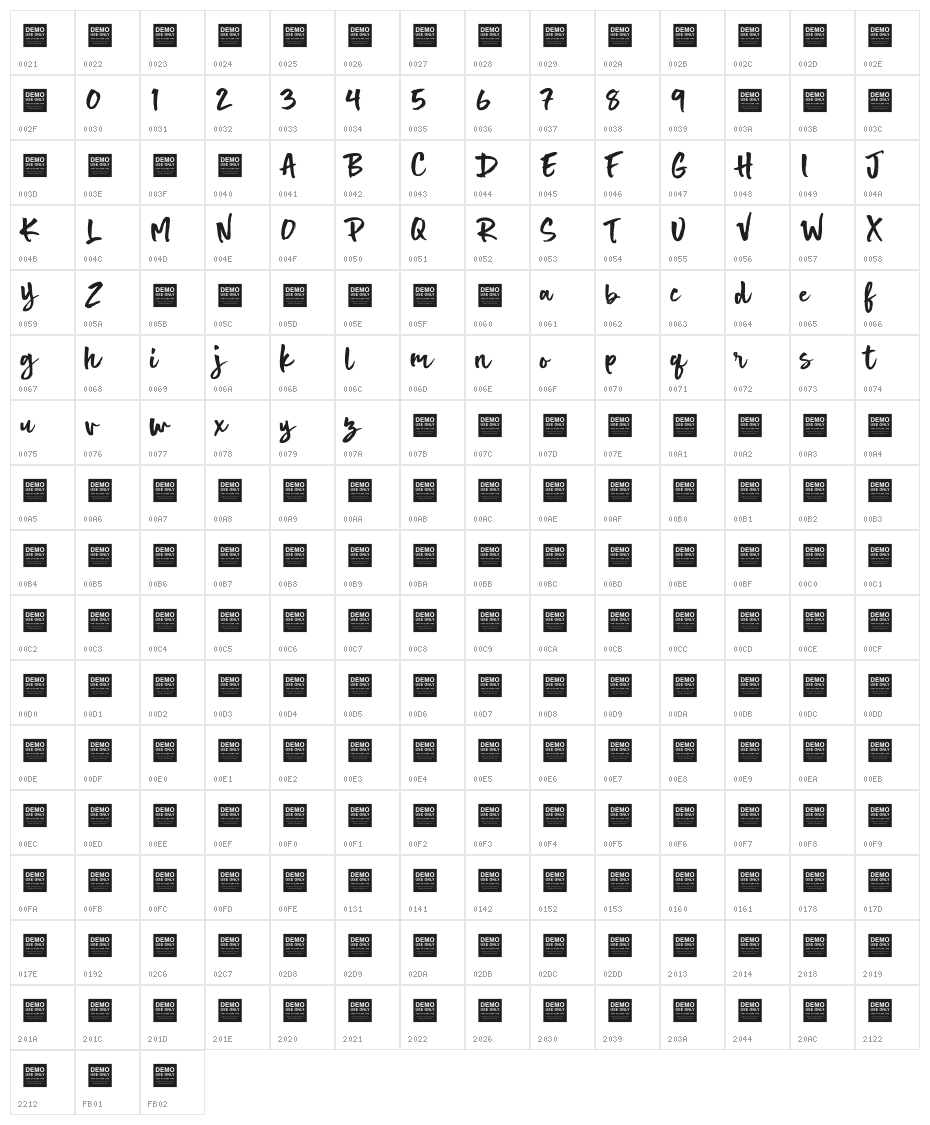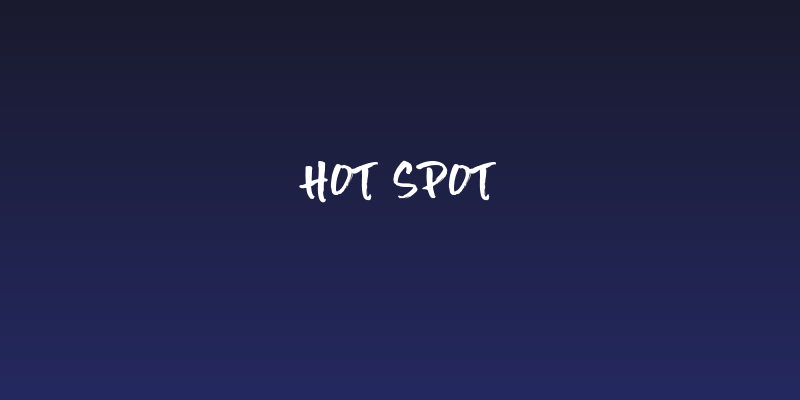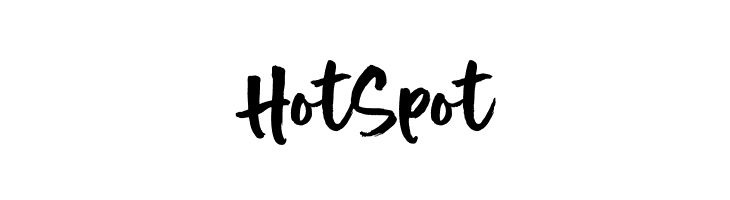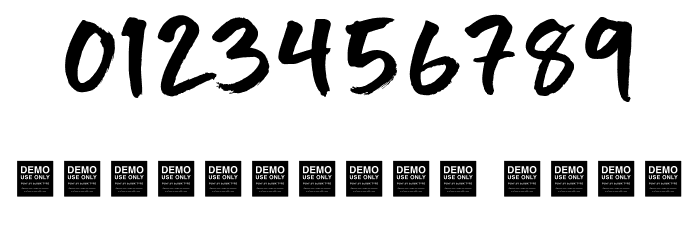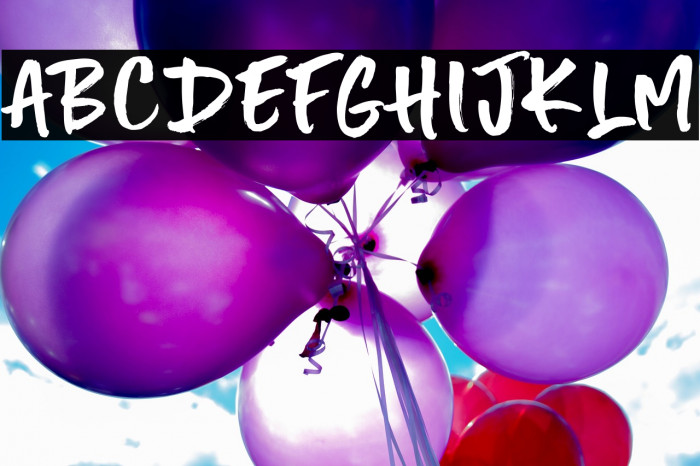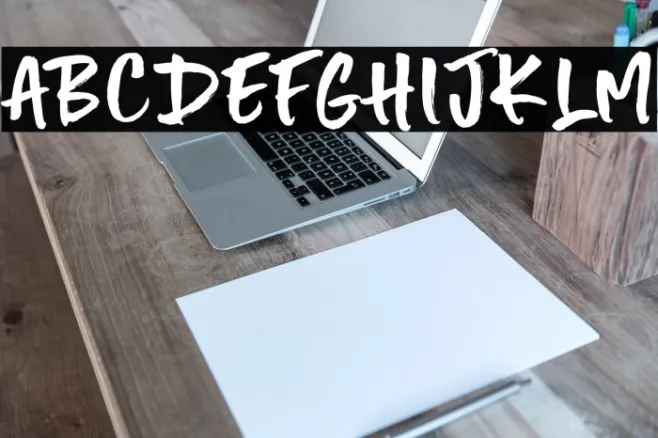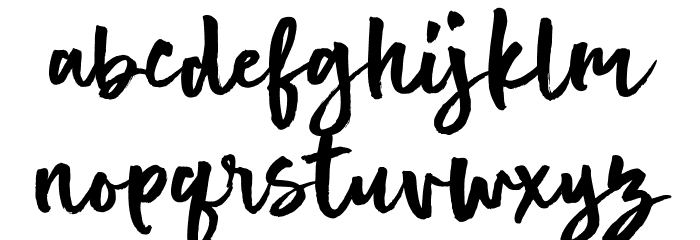
Hot Spot Font
Hot Spot Description
This font features a bold and expressive handwritten style, characterized by its dynamic brush strokes and fluid motion. The uppercase letters are robust and commanding, while the lowercase letters maintain a consistent flow, adding a personal touch to the text. The numerals are equally bold, ensuring readability and impact. This font's energetic and artistic appearance makes it suitable for creative projects that require a personal and informal tone. The overall design is both modern and playful, capturing attention with its unique flair.
| Proposed Projects | Ideal for branding, social media graphics, invitations, and posters where a personal and artistic touch is desired. |